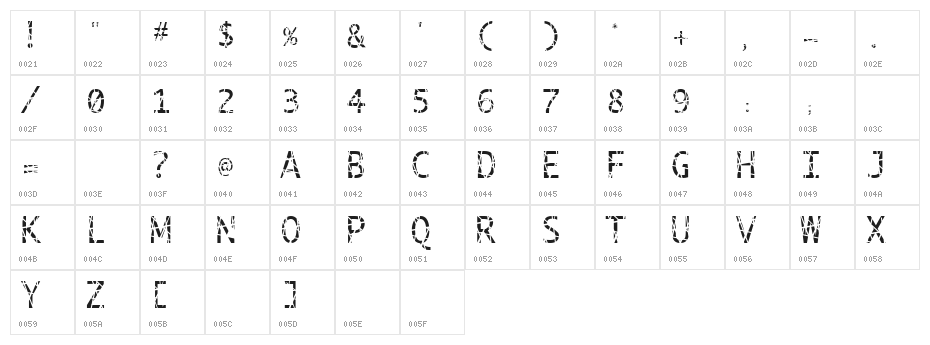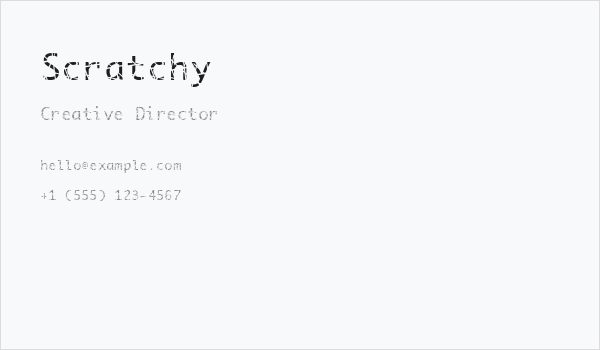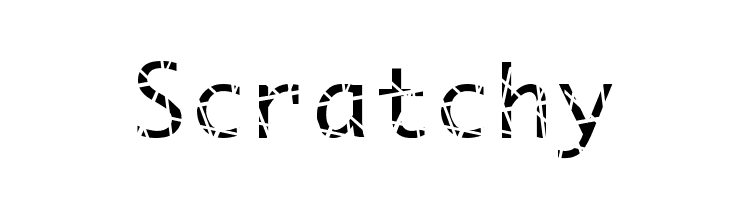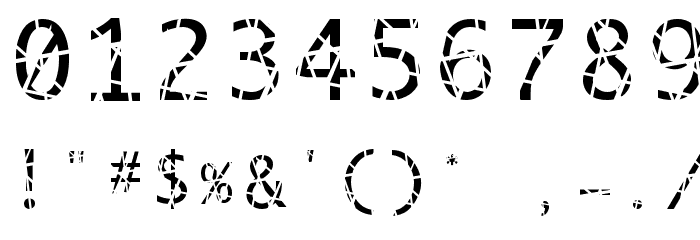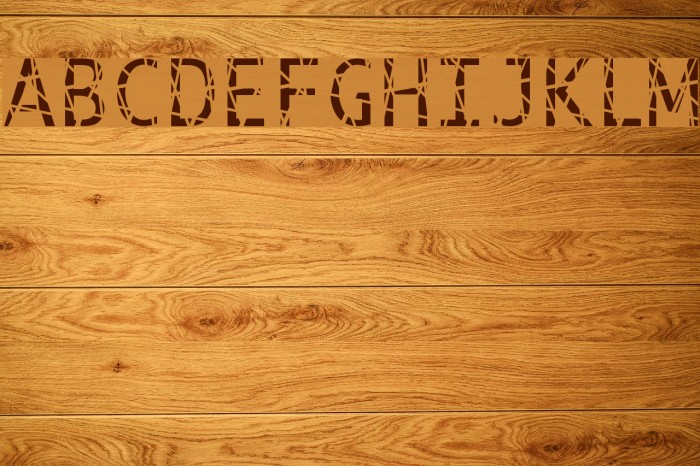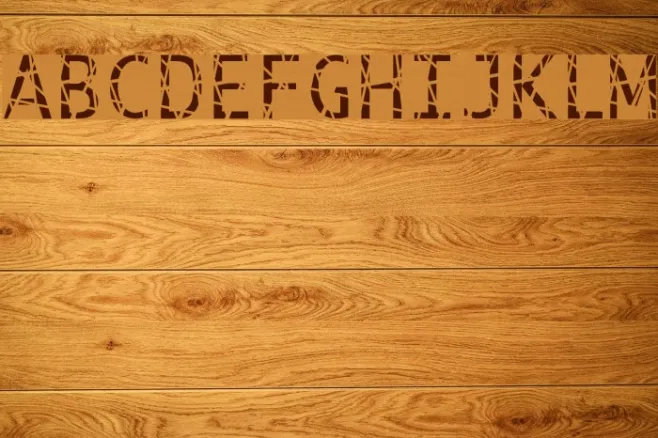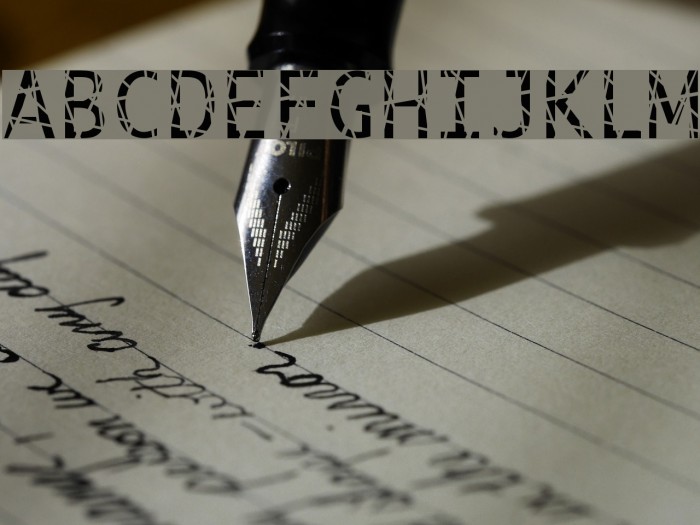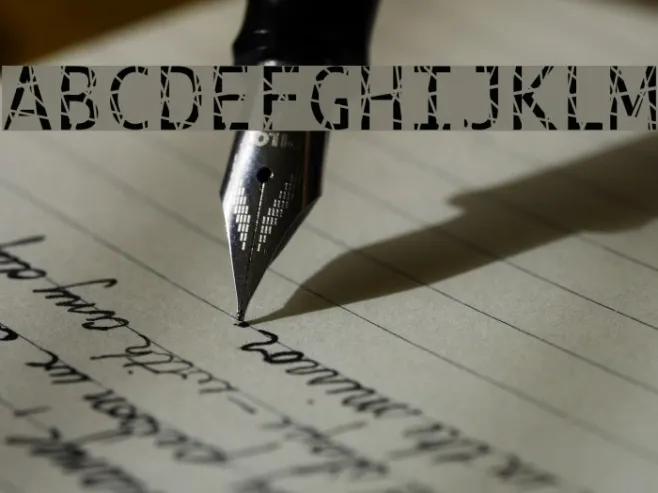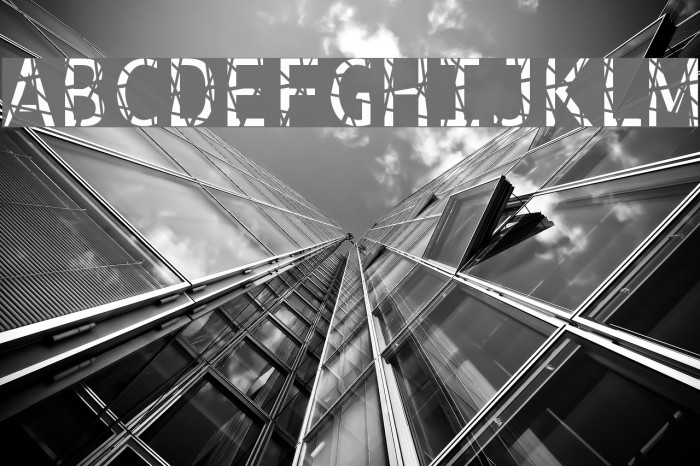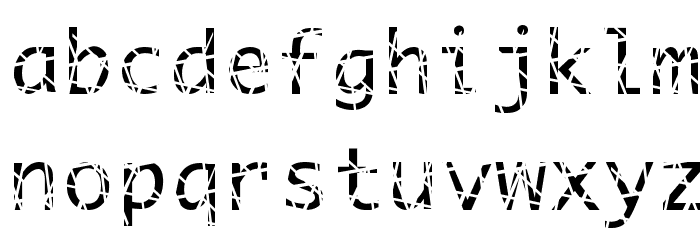
Scratchy Font
Scratchy Description
This font features a unique, distressed appearance with a scratchy texture that gives it a rugged and edgy look. The characters are bold and display a high level of contrast due to the irregular, fragmented design that mimics a scratched surface. This style creates a visually striking effect, making it ideal for attention-grabbing headlines or artistic projects. The uppercase and lowercase letters maintain a consistent design, while the numbers and special characters follow the same textured pattern, ensuring a cohesive look across all text elements.